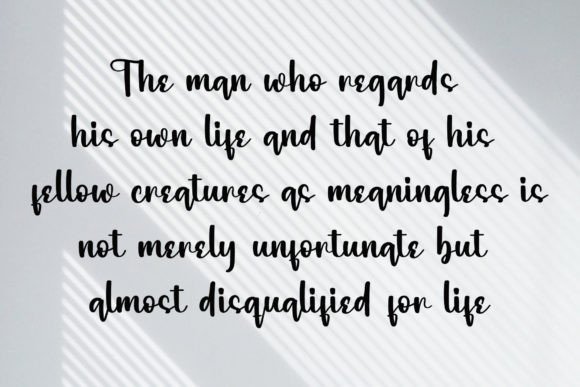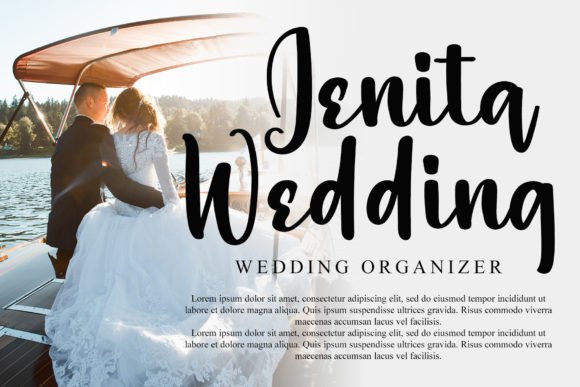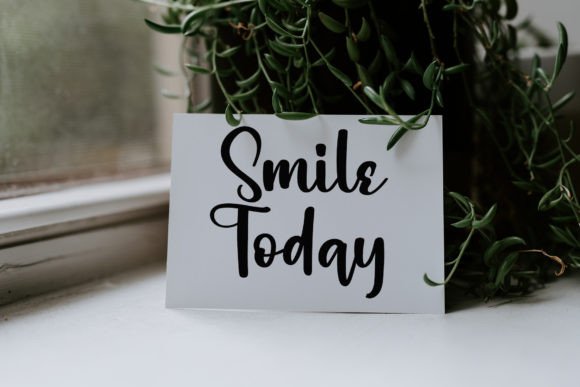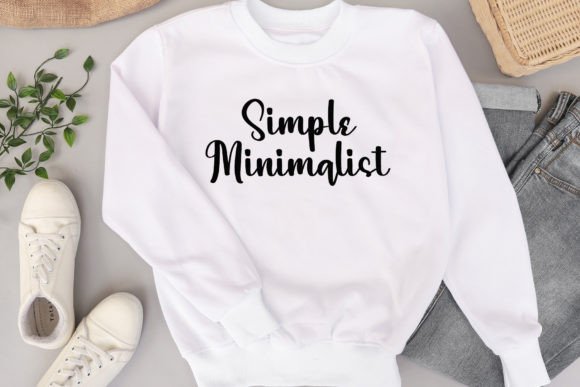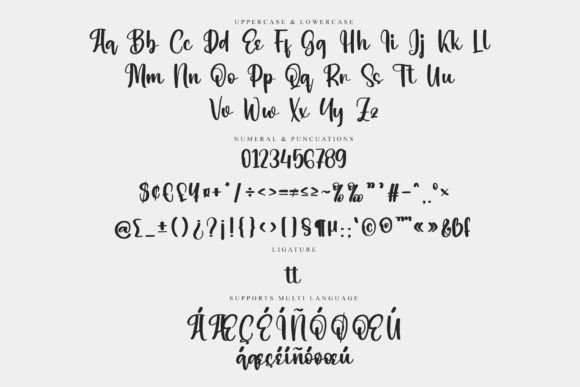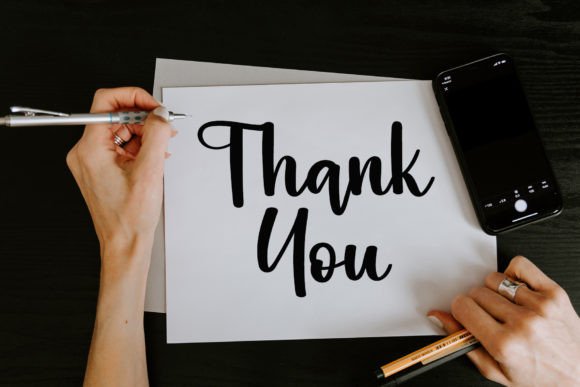
Introducing Breakdown Font: Elevate Your Designs with Elegance
In the world of design, typography plays a crucial role in conveying the message and aesthetic of a project. For those seeking a touch of elegance and sophistication, the Breakdown Font is an exceptional choice. This magical handwritten font is carefully crafted to transform your designs into true pieces of art, whether you’re working on Instagram posts, DIY projects, or any other creative endeavor.
Handwritten fonts have a unique charm that can add a personal touch to any design. They evoke a sense of warmth, authenticity, and creativity, making them perfect for a wide range of applications. From calligraphy scripts to casual notes, handwritten fonts can elevate your work and make it stand out. The Breakdown Font is no exception, offering a beautiful, elegant, and refined aesthetic that’s sure to impress.
Key Features of Breakdown Font
- Magical Handwritten Style: Breakdown Font boasts a whimsical, handwritten style that’s both elegant and enchanting. Its flowing lines and curves create a sense of movement and fluidity, adding a touch of magic to your designs.
- Elegance and Sophistication: This font is designed to bring a level of sophistication and refinement to your work. Its classic, timeless look makes it perfect for projects that require a touch of luxury and elegance.
- Versatility: Breakdown Font is incredibly versatile and can be used for a wide range of applications, from Instagram posts and stories to DIY projects, branding, and more.
- Easy to Read: Despite its elegant and cursive nature, Breakdown Font remains easy to read, making it perfect for both short phrases and longer texts.
Uses for Breakdown Font
The possibilities are endless when it comes to using Breakdown Font. Here are a few ideas to get you started:
- Instagram and Social Media: Add a touch of elegance to your Instagram posts, stories, and bio with Breakdown Font. It’s perfect for quotes, captions, and more.
- DIY Projects: Whether you’re working on handmade cards, invitations, or crafts, Breakdown Font can add a beautiful, personal touch to your work.
- Branding and Packaging: Use Breakdown Font to create elegant and sophisticated branding materials, such as logos, labels, and packaging.
- Stationery and Journaling: Add a touch of whimsy and elegance to your stationery, journals, and planners with Breakdown Font.
Tips for Using Breakdown Font
To get the most out of Breakdown Font, here are a few tips to keep in mind:
- Experiment with Sizes and Colors: Play around with different sizes and colors to find the perfect combination for your design.
- Mix and Match with Other Fonts: Combine Breakdown Font with other fonts to create a unique and visually appealing typography.
- Use it for Headings and Titles: Breakdown Font is perfect for headings and titles, adding a touch of elegance and sophistication to your work.
In conclusion, Breakdown Font is a magical handwritten font that can add a touch of elegance and sophistication to your designs. Its versatility, readability, and beauty make it perfect for a wide range of applications, from Instagram posts to DIY projects. Whether you’re a designer, crafter, or simply someone looking to elevate your creative work, Breakdown Font is an exceptional choice. So why not give it a try and see the magic for yourself?